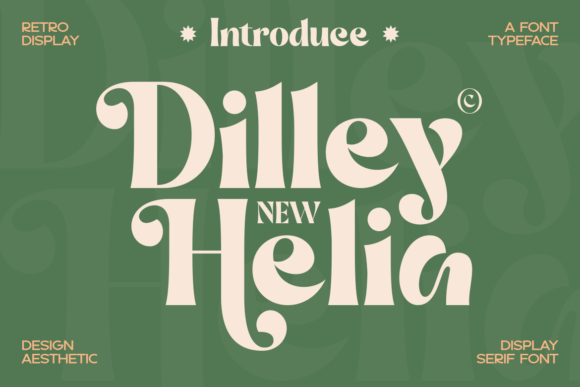
Dilley Helia Font: Elevate Your Design with a Timeless Serif Retro Typeface
In the world of typography, fonts play a crucial role in conveying messages, expressing emotions, and creating visual identities. Among the numerous fonts available, the Dilley Helia font stands out as a stunning serif retro typeface that has captured the attention of designers and typography enthusiasts alike. In this article, we’ll delve into the world of Dilley Helia, exploring its unique features, characteristics, and uses.
What is Dilley Helia?
Dilley Helia is a modern serif typeface that boasts a balanced proportion of stroke thickness and fineness, creating attractive and easy-to-read visuals. This font is designed to provide a touch that is understated yet distinctive, making it an excellent choice for various design projects. The Dilley Helia font features a bold distinction between thick and thin lines, which is a hallmark of modern serif styles.
Key Features of Dilley Helia
- Balanced stroke thickness and fineness: The Dilley Helia font is designed to provide a perfect balance between stroke thickness and fineness, making it easy to read and visually appealing.
- Modern serif style: Dilley Helia boasts a modern serif style characterized by a bold distinction between thick and thin lines, giving it a unique and sophisticated look.
- Understated yet distinctive: This font is designed to provide a touch that is understated yet distinctive, making it perfect for designs that require a subtle yet impactful typography.
Uses of Dilley Helia
The Dilley Helia font is versatile and can be used in various design projects, including:
- Branding and logos: Dilley Helia’s unique and sophisticated look makes it an excellent choice for branding and logo design.
- Print design: This font is perfect for print design projects, such as brochures, flyers, and posters.
- Digital design: Dilley Helia can be used in digital design projects, such as websites, mobile apps, and social media graphics.
- Packaging design: The font’s understated yet distinctive look makes it suitable for packaging design projects.
Benefits of Using Dilley Helia
Using the Dilley Helia font offers several benefits, including:
- Improved readability: The font’s balanced stroke thickness and fineness make it easy to read, even at small sizes.
- Enhanced visual appeal: Dilley Helia’s modern serif style and bold distinction between thick and thin lines give it a unique and sophisticated look.
- Versatility: This font can be used in various design projects, from branding and logos to print and digital design.
- Timeless look: The Dilley Helia font has a timeless look that won’t go out of style quickly, making it a great investment for designers and businesses.
Tips for Using Dilley Helia
Here are some tips for using the Dilley Helia font effectively:
- Use it as a headline font: Dilley Helia’s bold and distinctive look makes it perfect for headlines and titles.
- Pair it with a sans-serif font: Pairing Dilley Helia with a sans-serif font can create a nice contrast and add visual interest to your design.
- Experiment with font sizes: Dilley Helia’s balanced stroke thickness and fineness make it easy to read at various font sizes.
- Use it consistently: Using Dilley Helia consistently throughout your design project can help create a cohesive and professional look.
In conclusion, the Dilley Helia font is a stunning serif retro typeface that offers a unique and sophisticated look. Its balanced stroke thickness and fineness, modern serif style, and bold distinction between thick and thin lines make it perfect for various design projects. By using Dilley Helia, designers and businesses can create visually appealing and easy-to-read designs that stand out from the crowd.